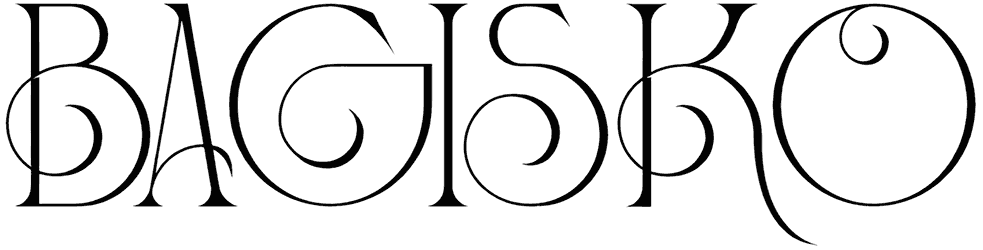
Bagisko Font
Are you looking for fonts to give your designs a vintage feel? Bagisko is a tool to add texture and age. The twists of this serif font help you to create a lasting design in the form of book covers, packaging, and other creative spaces without wasting time.
So if you’re looking for a way to bring your designs to life, take help from both styles of this retro font and make a splash in the absence of lowercase letters.